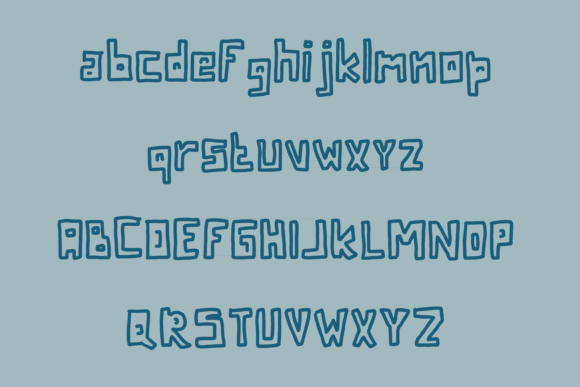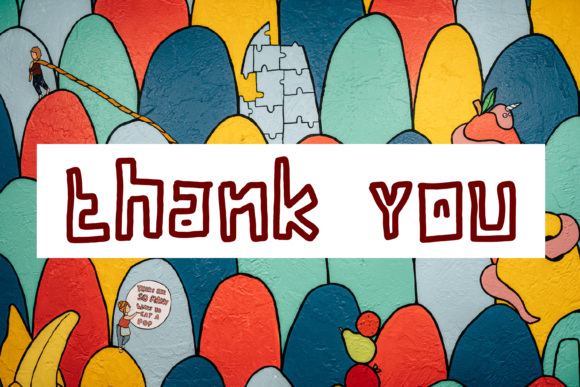
Amonkcus Font: Add a Touch of Quirkiness to Your Designs
Are you looking for a font that can add a dash of personality to your designs? Look no further than Amonkcus, a cool and quirky outlined display font that’s perfect for a wide range of creative projects. In this article, we’ll take a closer look at the Amonkcus font, its features, and how you can use it to elevate your designs.
What is Amonkcus Font?
Amonkcus is a unique and eye-catching font that’s designed to make your designs stand out. It’s an outlined display font, which means it features bold lines and a distinctive outline that gives it a 3D-like effect. The font is perfect for designers who want to add a touch of whimsy and playfulness to their work.
Key Features of Amonkcus Font
So, what makes Amonkcus font so special? Here are some of its key features:
- Outlined design: The font features a bold outline that gives it a distinctive look and makes it perfect for designs that require a touch of drama.
- Quirky and playful: Amonkcus has a fun and quirky personality that’s perfect for designs that require a lighthearted touch.
- Highly versatile: The font can be used for a wide range of designs, from cartoon-related projects to children’s games, quotes, titles, brand names, book covers, and posters.
- Easy to read: Despite its bold and outlined design, Amonkcus is surprisingly easy to read, making it perfect for designs that require a clear and concise message.
Use Cases for Amonkcus Font
Amonkcus is a highly versatile font that can be used for a wide range of designs. Here are some use cases to get you started:
- Cartoon-related designs: Amonkcus is perfect for cartoon-related designs, such as character logos, animation titles, and comic book covers.
- Children’s games and books: The font’s playful and quirky personality makes it perfect for children’s games, book covers, and educational materials.
- Quotes and titles: Amonkcus is great for creating eye-catching quotes and titles that require a touch of personality.
- Brand names and logos: The font’s unique design makes it perfect for brand names and logos that require a memorable and distinctive look.
- Posters and flyers: Amonkcus is great for creating eye-catching posters and flyers that require a bold and attention-grabbing design.
Tips for Using Amonkcus Font
Here are some tips for using Amonkcus font in your designs:
- Experiment with colors: Amonkcus looks great in bold and bright colors, so don’t be afraid to experiment with different color schemes.
- Use it sparingly: While Amonkcus is a great font, it can be overwhelming if used excessively. Use it sparingly to create emphasis and add personality to your designs.
- Pair it with other fonts: Amonkcus can be paired with other fonts to create a unique and interesting design. Experiment with different font combinations to find the perfect look.
Amonkcus font is a cool and quirky outlined display font that’s perfect for designers who want to add a touch of personality to their work. Its unique design, versatility, and ease of use make it a great choice for a wide range of creative projects. Whether you’re designing cartoon-related projects, children’s games, quotes, titles, brand names, book covers, or posters, Amonkcus is a great font to have in your arsenal.